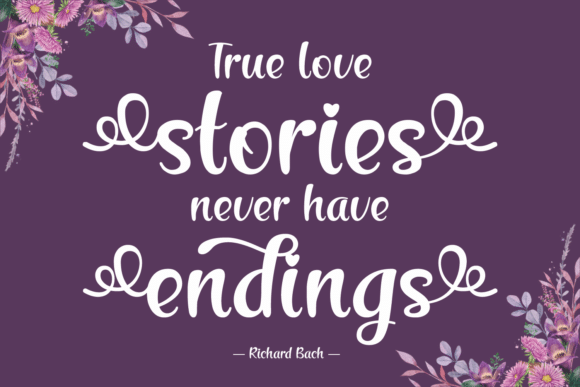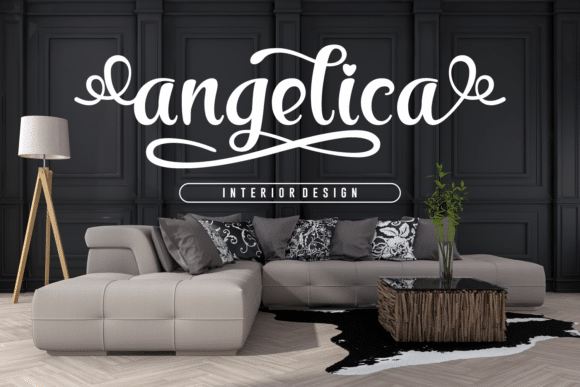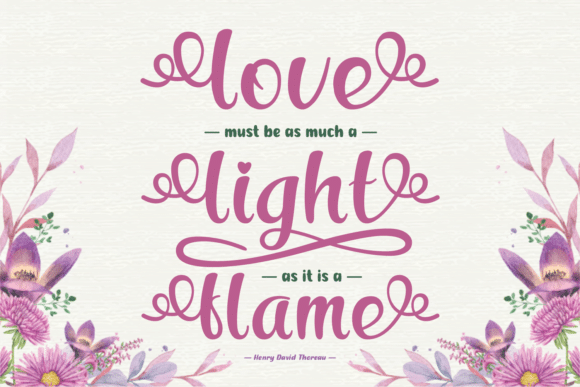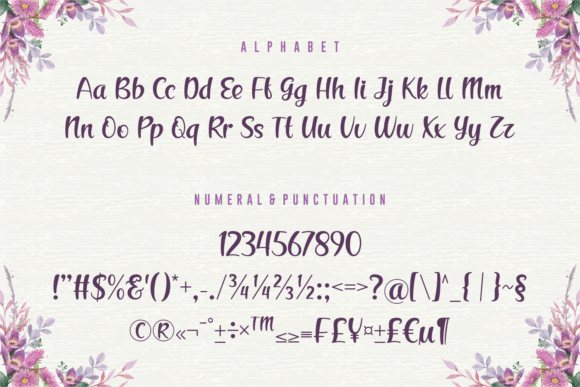
Maylee Font
Maylee is a ravishing script. It features a cheery and delicate vibe that will instantly make your creations look out of this world. Add it confidently to your favorite projects and let yourself be amazed by the outcome generated.